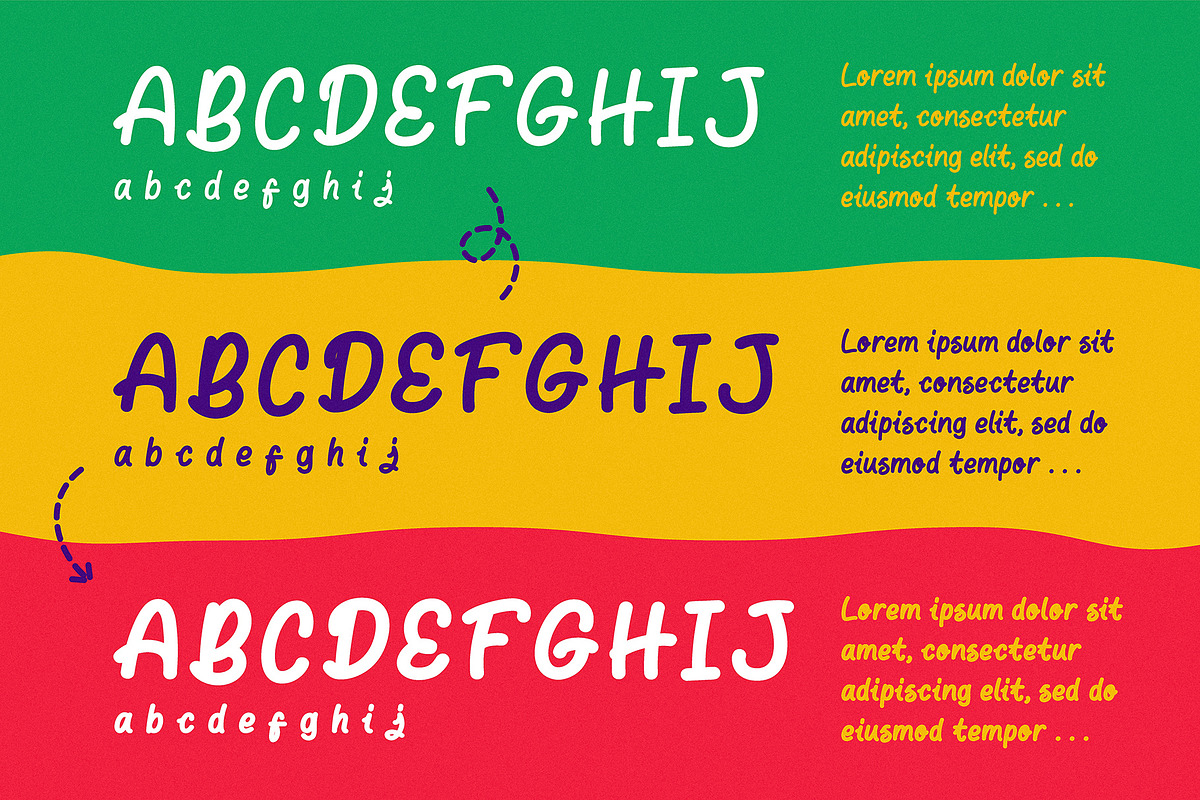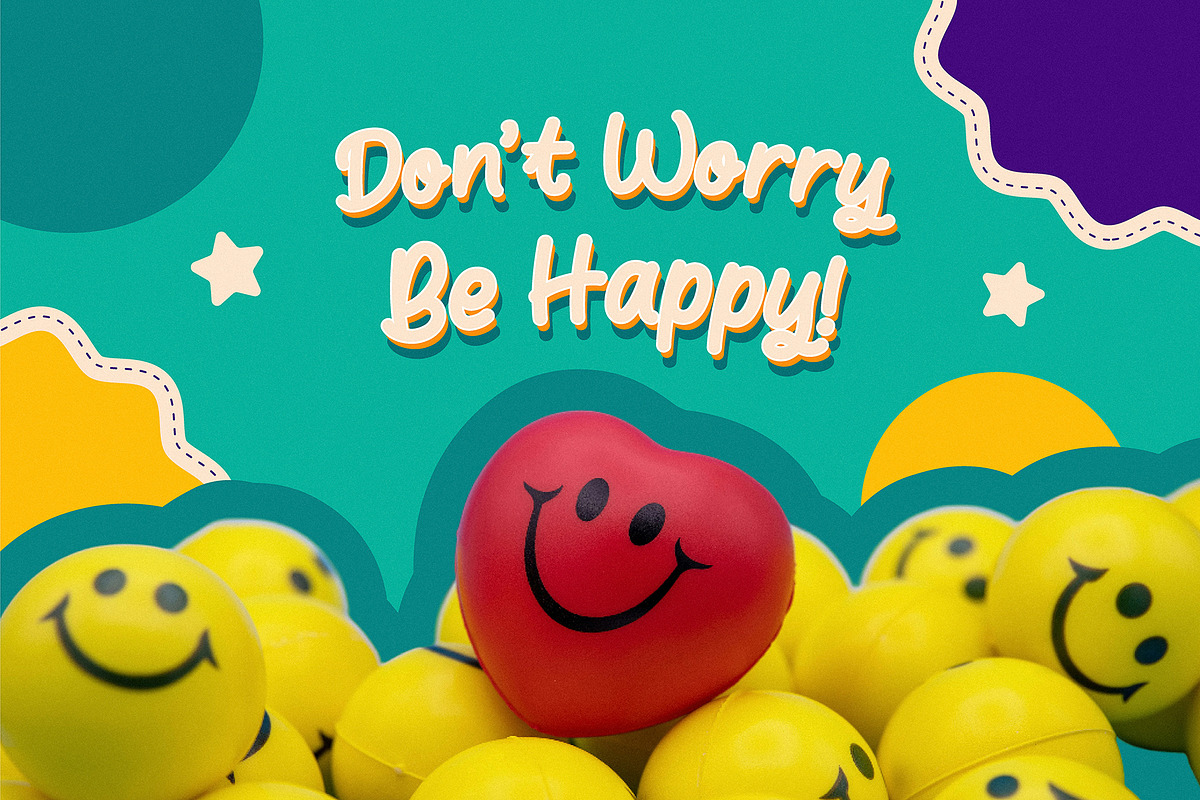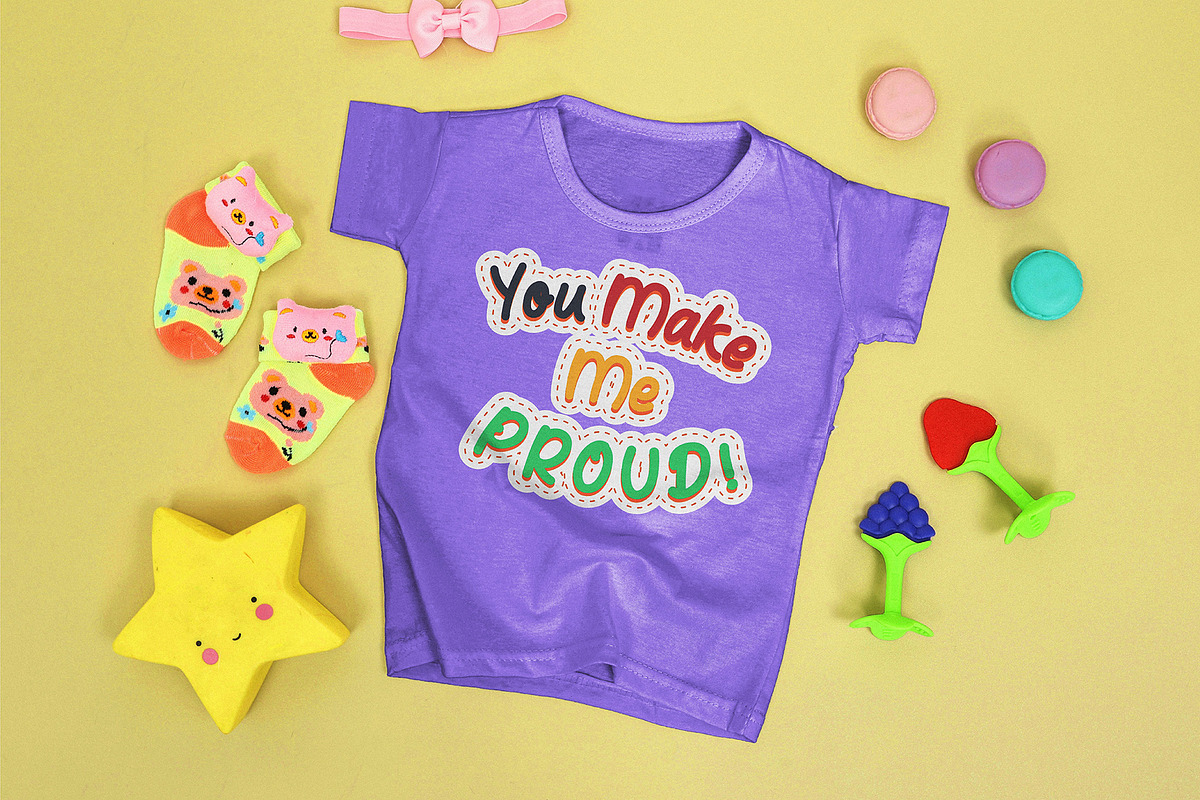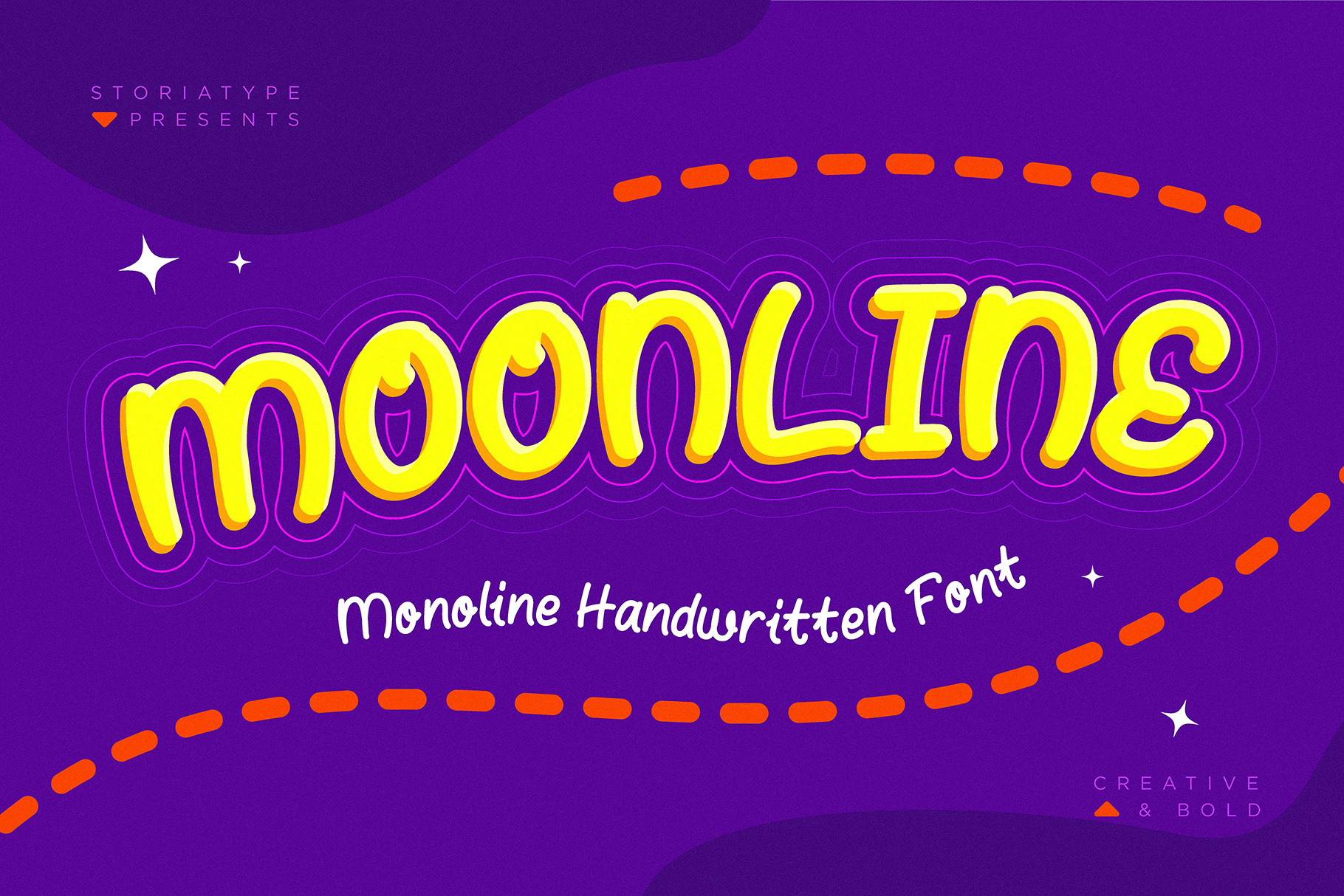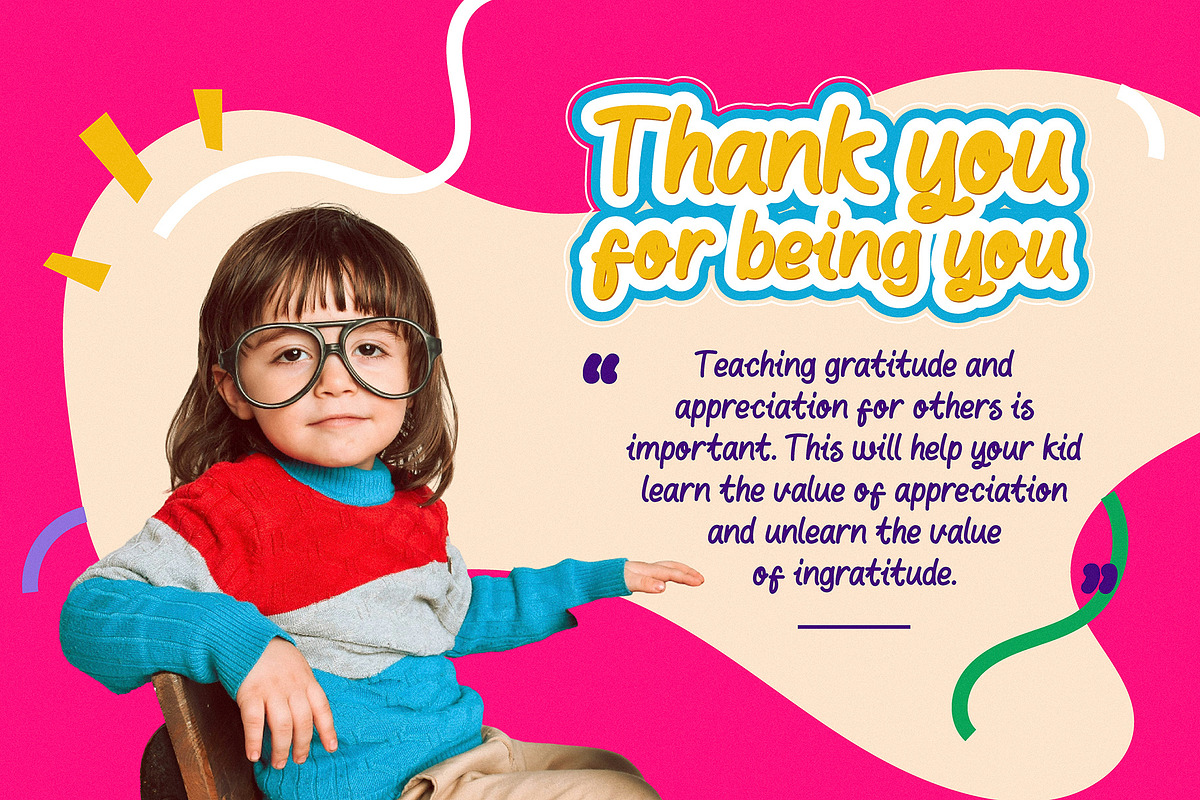
Moonline - Monoline Handwritten Font
Character Style: The font exudes a playful and whimsical character. Its design intentionally deviates from the standard, formal appearance of most fonts.
Curves and Swirls: The font features playful curves, loops, and swirls. These elements create a sense of movement and liveliness.
Decorative Details: Look closely, and you’ll notice small embellishments or decorative elements within the characters. These details contribute to the font’s whimsy.
This font is ideal for creative and informal contexts. It’s perfect for designs that need a touch of fun, such as:
Children’s Books: The playful nature of the font makes it appealing for kids’ books and illustrations.
Invitations and Greeting Cards: Use it for birthday invitations, party flyers, or cheerful greeting cards.
Craft Projects: Whether it’s scrapbooking, DIY labels, or handmade posters, this font adds a delightful flair.
Social Media Graphics: Create eye-catching posts with this font for a friendly and approachable vibe.